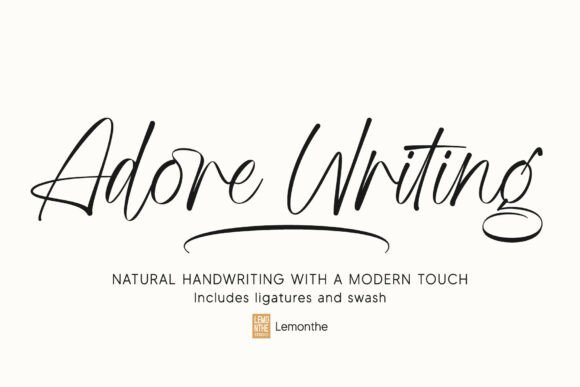
Have you ever sat down with a blank page, a pen in hand, and let your imagination run wild? The flow of ideas, the dance of words, and the creation of something truly special – it’s a feeling like no other. And that’s exactly what the Adore Writing Font is all about: capturing the essence of handwritten elegance in a digital format.
This beautiful font is designed to bring a touch of sophistication and whimsy to your design projects. With its smooth strokes and flowing letterforms, the Adore Writing Font is perfect for logos, wedding invitations, product branding, social media quotes, and packaging. Whether you’re a seasoned designer or just starting out, this versatile font is sure to become your new go-to for adding a personal touch to your work.
Adore Writing Font Key Features
- Unique Characteristics: This font features a distinctive, elegant script style with flowing connections and refined details, making it ideal for creative and artistic projects.
Adore Writing Font Review
As a designer, I’ve had the chance to work with numerous fonts, and I must say that the Adore Writing Font has left me with mixed feelings. ✨ On the positive side, I love how elegant and refined this script font looks. It’s perfect for creating a sense of sophistication and luxury in any design project.
The Adore Writing Font is also incredibly versatile, making it suitable for a wide range of applications, from fashion and beauty to food and beverage branding. ✨ I’ve found it to be particularly effective for creating eye-catching headings and titles, adding a touch of elegance to any layout.
- ⚠️ The Adore Writing Font can be a bit too ornate for some designs, potentially overwhelming the viewer.
- ⚠️ It’s also not ideal for body text, as it can be difficult to read due to its complex script.
- ⚠️ The font may not be suitable for digital displays, as it can appear pixelated and lose its elegance.
Overall, I would give the Adore Writing Font a solid 3.5 out of 5 stars. While it excels in certain areas, it falls short in others. If you’re looking for a font that adds a touch of luxury and elegance to your designs, the Adore Writing Font is definitely worth considering. However, it’s essential to weigh its limitations and ensure it’s the right fit for your project.
The Adore Writing Font is ideal for:
- Creating romantic invitations or wedding stationery.
- Designing social media graphics or blog posts with a whimsical touch.
- Adding a personal touch to handwritten-style notes or journals.
Alternatives to Adore Writing Font
Great Vibes is a modern script font that is perfect for creating a friendly and approachable tone. It’s ideal for use in headings, titles, and quotes. Great Vibes has a more casual and relaxed feel compared to Adore Writing Font, which is more elegant and sophisticated.
Carolyna Pro is a elegant and refined script font that is perfect for creating a luxurious and high-end feel. It’s ideal for use in branding, packaging, and advertising. Carolyna Pro has a more dramatic and sophisticated feel compared to Adore Writing Font, which is more playful and whimsical.
Playfair Display is an elegant and luxurious script font that is perfect for creating a sophisticated and high-end feel. It’s ideal for use in branding, packaging, and advertising. Playfair Display has a more formal and traditional feel compared to Adore Writing Font, which is more modern and contemporary.
Q: What is the character set and language support for Adore Writing Font?
Adore Writing Font includes a comprehensive character set, supporting a wide range of languages, including Latin, Cyrillic, and Greek alphabets. The font also includes a variety of punctuation marks, symbols, and diacritical characters. The exact character set and language support may vary depending on the specific font version and licensing agreement.